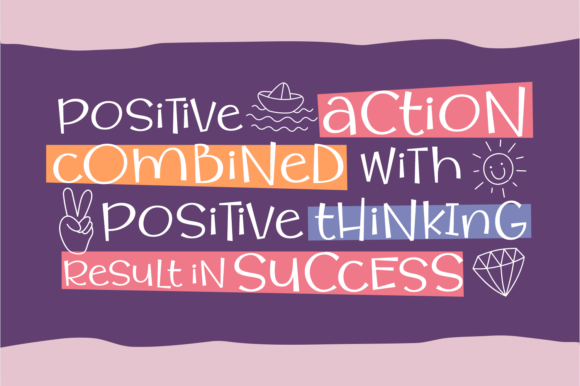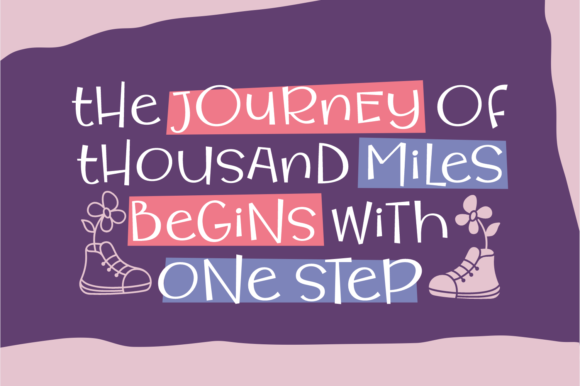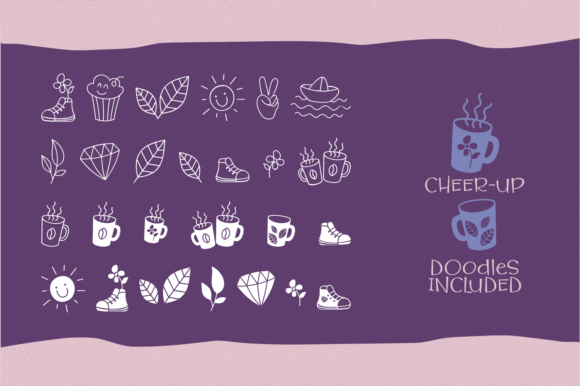
Introducing Creative Twister: The Whimsical Handwritten Serif Font
Are you looking for a font that can add a touch of playfulness and whimsy to your design projects? Look no further than Creative Twister, a stunning handwritten serif font with a twist. This beautiful font is perfect for designers and crafters who want to add a cheerful vibe to their work.
What is Creative Twister?
Creative Twister is a unique and creative font that combines the elegance of serif fonts with the playfulness of handwritten fonts. Its stunning doodles and whimsical twist make it perfect for a variety of design projects, from invitations and greeting cards to posters and social media graphics.
Key Features of Creative Twister
- Handwritten serif font: Creative Twister has the elegance and sophistication of serif fonts, but with a handwritten twist that makes it more playful and approachable.
- Whimsical doodles: The font comes with a set of stunning doodles that can add a touch of whimsy and playfulness to any design project.
- Cheerful vibe: Creative Twister is designed to add a cheerful vibe to any design project, making it perfect for projects that require a playful and upbeat tone.
- Versatile: The font is versatile and can be used for a variety of design projects, from print to digital media.
Uses of Creative Twister
Creative Twister is a versatile font that can be used for a variety of design projects, including:
- Invitations and greeting cards: The font’s playful and whimsical design makes it perfect for invitations and greeting cards.
- Posters and flyers: Creative Twister can add a touch of playfulness and energy to posters and flyers.
- Social media graphics: The font’s cheerful vibe makes it perfect for social media graphics, such as Facebook posts and Instagram stories.
- Blog and website design: Creative Twister can add a touch of personality and whimsy to blog and website design.
Benefits of Using Creative Twister
Using Creative Twister in your design projects can have several benefits, including:
- Unique and creative designs: The font’s unique and creative design can help you stand out from the crowd and create designs that are truly unique.
- Time-saving: Creative Twister comes with a set of pre-designed doodles, which can save you time and effort in creating your own designs.
Tips for Using Creative Twister
Here are some tips for using Creative Twister in your design projects:
- Experiment with different colors: The font looks great in a variety of colors, so don’t be afraid to experiment and find the perfect color for your design.
- Use the doodles creatively: The doodles that come with Creative Twister can be used in a variety of ways, so don’t be afraid to get creative and try out new ideas.
- Pair it with other fonts: Creative Twister can be paired with other fonts to create a unique and creative design.
Creative Twister is a stunning handwritten serif font with a whimsical twist that can add a cheerful vibe to any design project. Its unique and creative design, versatility, and ease of use make it perfect for designers and crafters who want to create unique and creative designs. Whether you’re creating invitations, posters, social media graphics, or blog and website designs, Creative Twister is the perfect font for you.